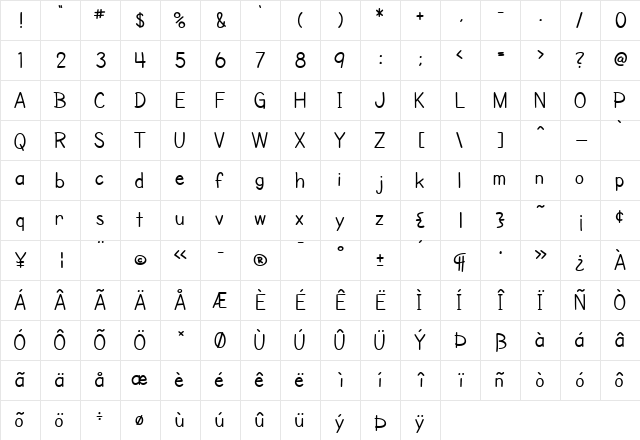
SF Cartoonist Hand Regular
Design Context for SF Cartoonist Hand Typeface
SF Cartoonist Hand trades formality for fun, with bouncy, characterful letterforms that bring warmth and energy to any project.
Font Pairing: Pairs well with a rounded or humanist sans for body copy, maintaining the friendly tone without relying on SF Cartoonist Hand to carry extended reading.
Pro Tip: Use SF Cartoonist Hand at larger display sizes where its expressive character can land. Pair with a clean, simple sans for body copy to maintain readability.